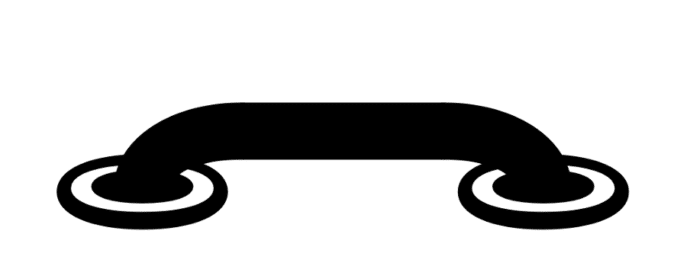
Make monsters and pipes with this clever font
Here’s a clever and innovative font that lets you make unique monsters or pipe connections for Word, PowerPoint or anywhere else you need something a little different. Office Watch has a complete list of the Teranoptia font symbols for easy reference.
Teranoptia is a font that uses letters and some other symbols to create fantastical beasts. It draws from the Bayeux Tapestry and medieval illustrations, as well as children’s books for its style. You can use it to make decorative borders, to invent creatures or simply to add some flavor to your layouts with notes in the margins.
Instead of seeing letters and some symbols a creature or piping are visible. So the letters OQR appear like this in Teranoptia:
For a longer creature, just add more middle or body sections. In this case Q or P, this is OQPQR
Or add a different head OQN (we’ve also changed the color of the head)
Piping
There are also vertical and horizonal piping characters this is {$} in Terantopia.
There are so many possibilities.
UPPER case Teranoptia
These creatures face right.
Letters: ABCDEFGHIJKLMNOPQRSTUVWXYZ
lower case teranoptia
These creatures face left.
Letters: abcdefghijklmnopqrstuvwxyz
Pipes and connectors
Symbols: (){}[]-“”‘’ « » ‹› $ €
Other Teranoptia symbols
Symbols: žr,*-